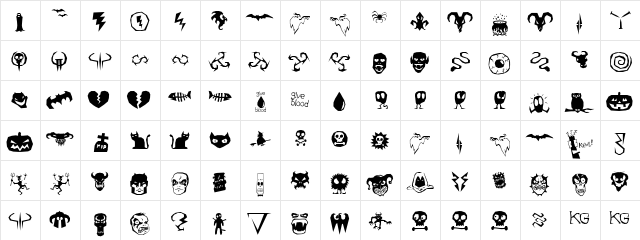
ILL oCtoBer 98 Normal
Design Context for ILL oCtoBer 98 Typeface
ILL oCtoBer 98 is a composed and adaptable typeface that performs quietly and consistently across a wide range of design contexts.